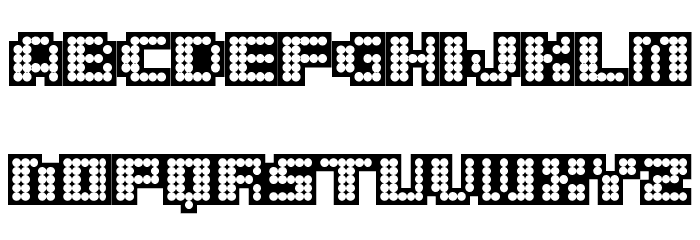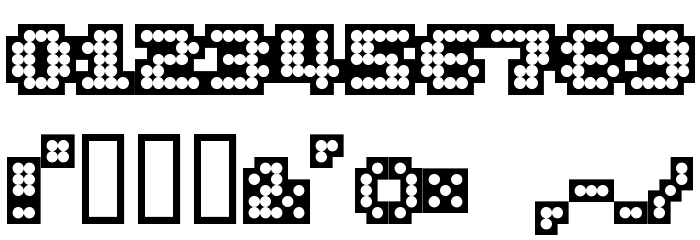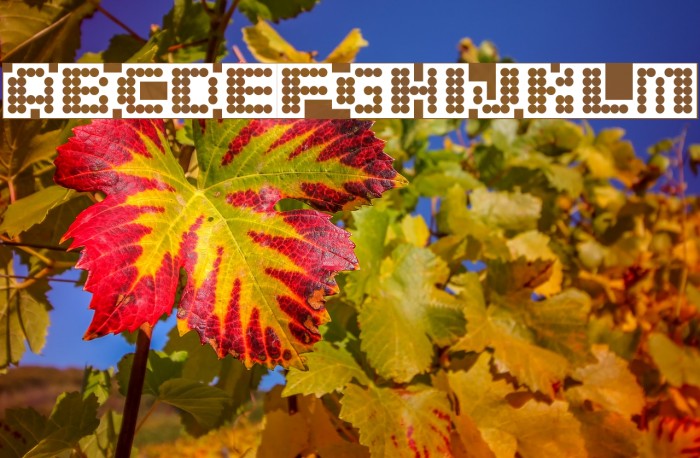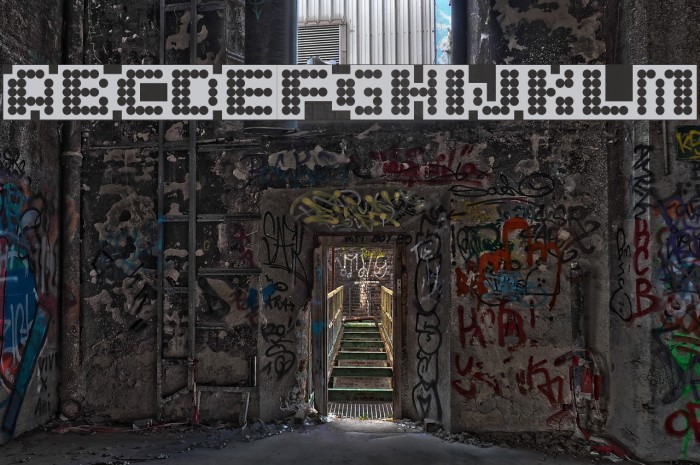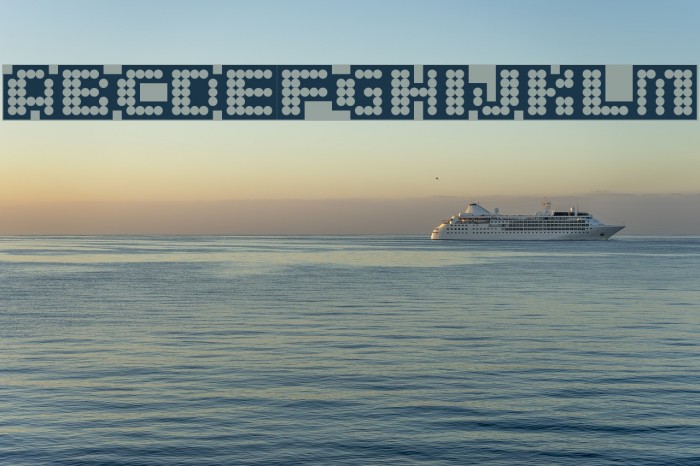
delia Black Font
This font features a unique and playful design composed entirely of small, evenly spaced dots forming each character. The letters are bold and have a distinct, geometric appearance, creating a sense of movement and energy. The uniform dot pattern gives it a digital or pixelated aesthetic, reminiscent of retro video game graphics. Despite its decorative nature, the characters maintain good legibility. The numbers and special characters follow the same dot pattern, ensuring consistency across the entire typeface.
A bold, dot-based decorative font with a playful, pixelated style.
- Font: delia Black
- Weight: Black
- Proposed Projects: Ideal for digital art projects, retro-themed designs, video game graphics, and creative posters.
- Overall Style: Modern, Retro